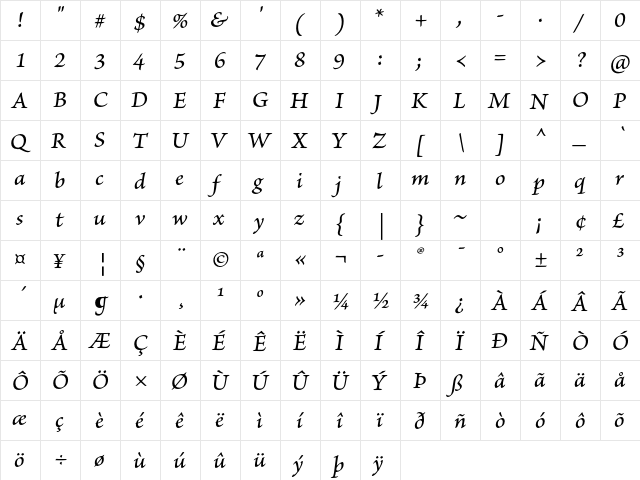
Brioso Pro Medium Italic Caption
| Designer | Robert Slimbach |
Design Context for Brioso Pro Typeface
Brioso Pro is a composed and adaptable typeface that performs quietly and consistently across a wide range of design contexts. Its italic angle brings a sense of urgency and motion to the letterforms.
Pro Tip: Try Brioso Pro for annotation and caption copy alongside an upright companion — the contrast in angle creates a dynamic but ordered typographic system.